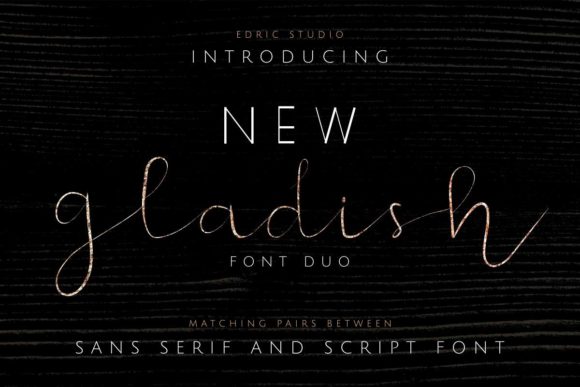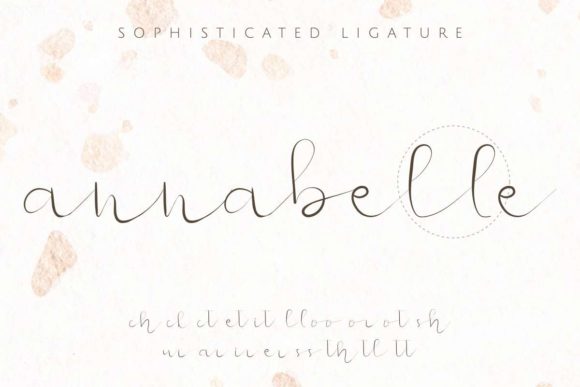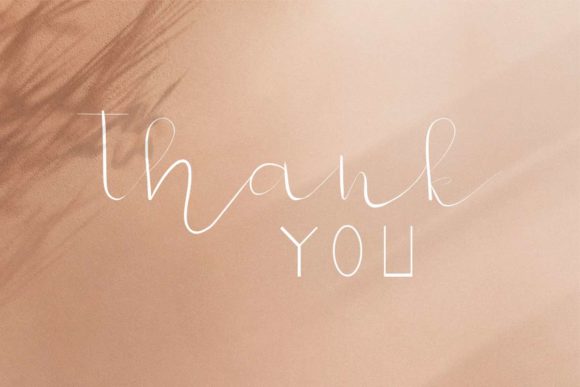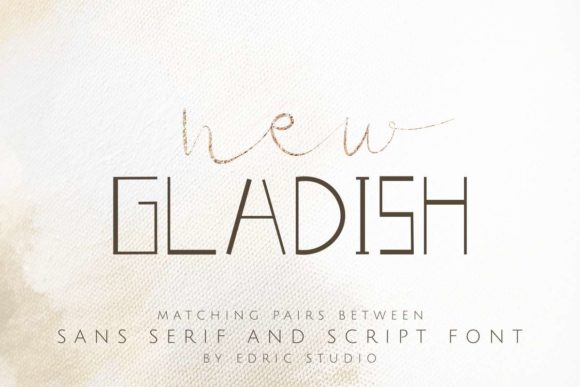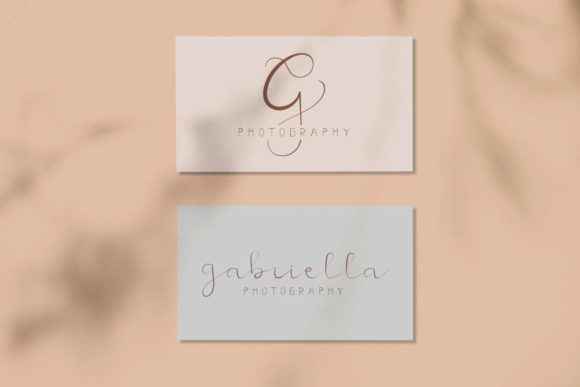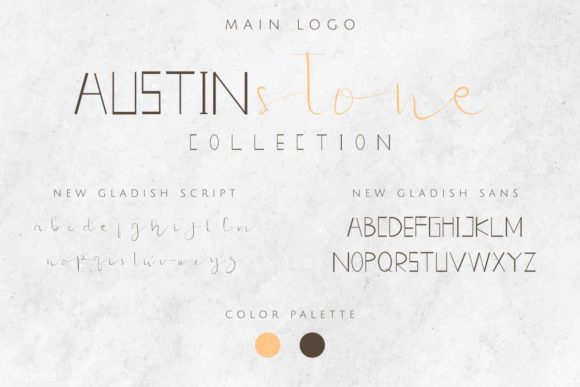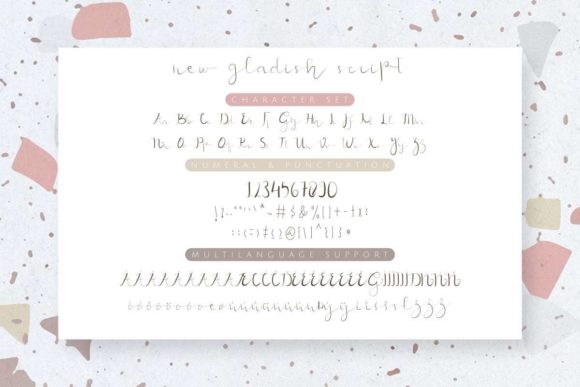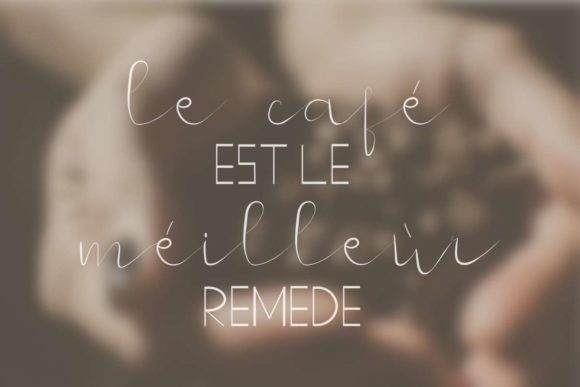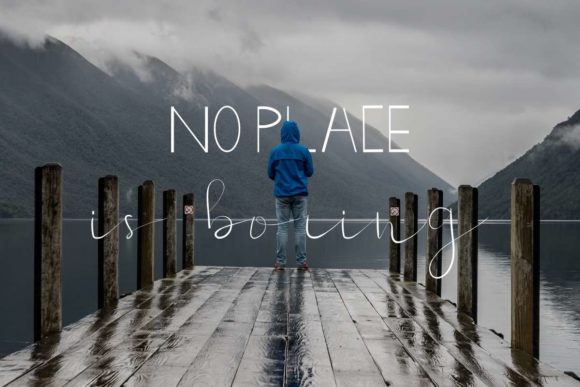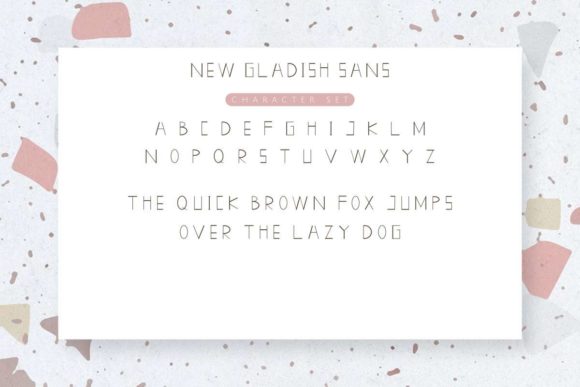
New Gladish Font
About New Gladish Font
New Gladish is a gorgeous font duo full of charm. The elegance of the script perfectly complements the display font’s style. Combine them to achieve outstanding results.